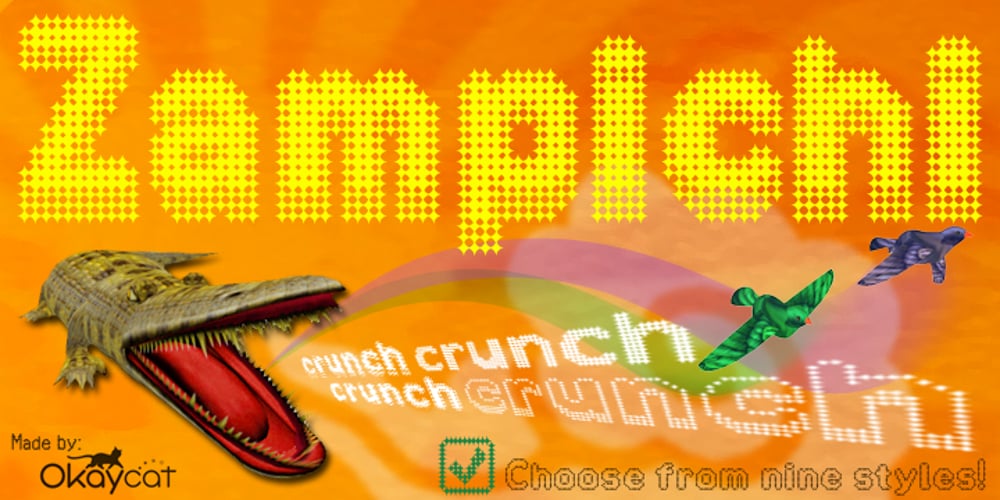
Zampichi
Zampichi font
Zampichi Font Family was designed by Luke William Turvey and published by Okaycat. Zampichi contains 9 styles and family package options. Zampichi simulates an old school video game or halftone print. Nine futuristic styles are delivered in gritty pixelated format. Dingbats such as cursor symbols, radio buttons, checkboxes and (surprisingly) cats replace a few of the least useful alternate symbols. Zampichi is extended, containing West European diacritics and ligatures, making it suitable for multilingual environments and publications.